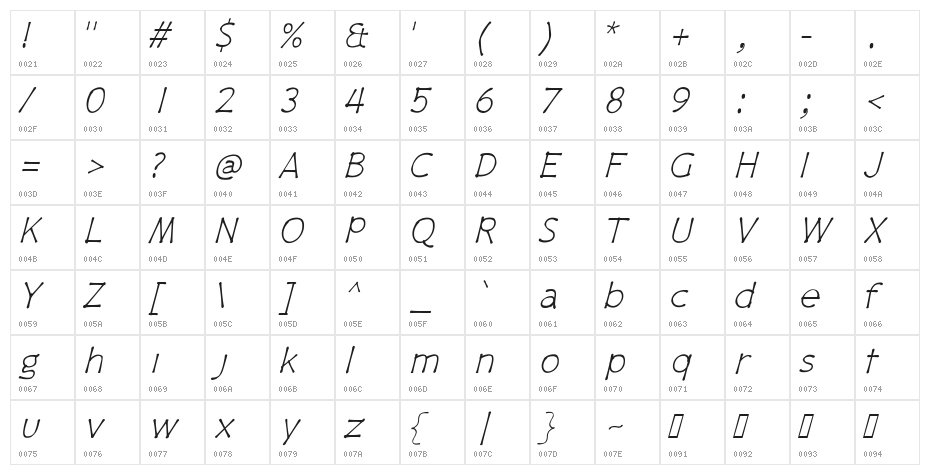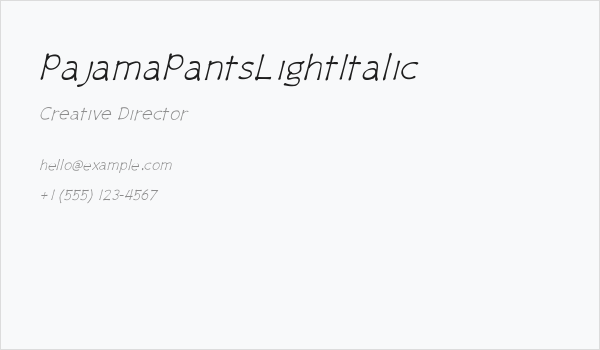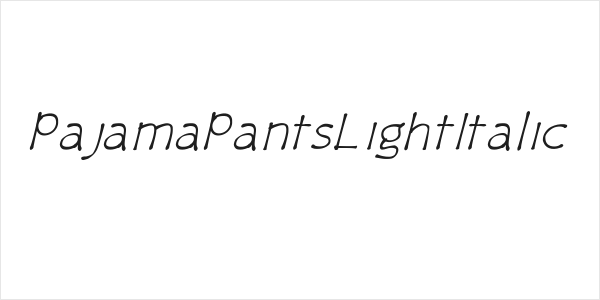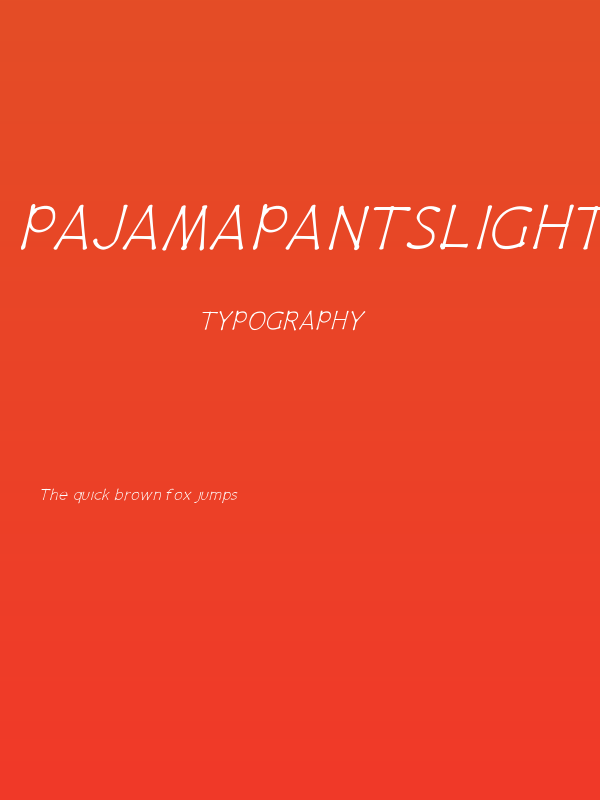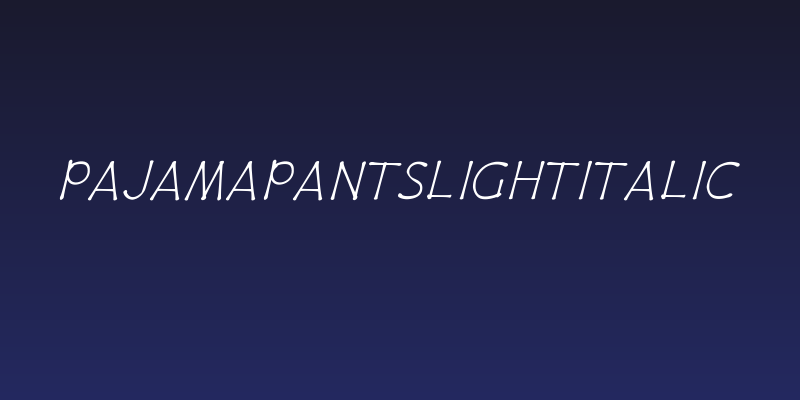
PajamaPantsLightItalic Font
PajamaPantsLightItalic Description
This font presents a casual and relaxed style, characterized by its handwritten appearance. The letters are slightly slanted, giving it an italic feel, while maintaining a light and airy quality. The strokes are consistent in thickness, providing a uniform look across all characters. The uppercase letters are tall and slender, while the lowercase letters have a playful, rounded form. Numbers and special characters follow the same style, ensuring a cohesive look throughout. The overall design is approachable and friendly, making it suitable for informal and creative projects.
Overall StyleCasual
Use CaseHeadlines, Logos, Invitations
Proposed ProjectsIdeal for personal invitations, casual branding, children's books, and creative projects.